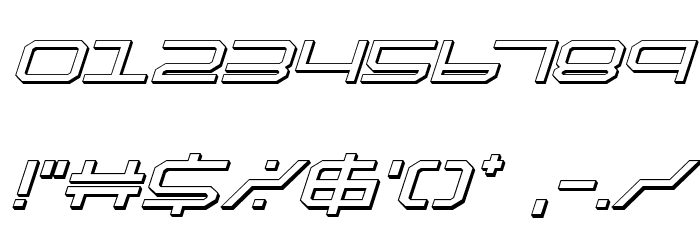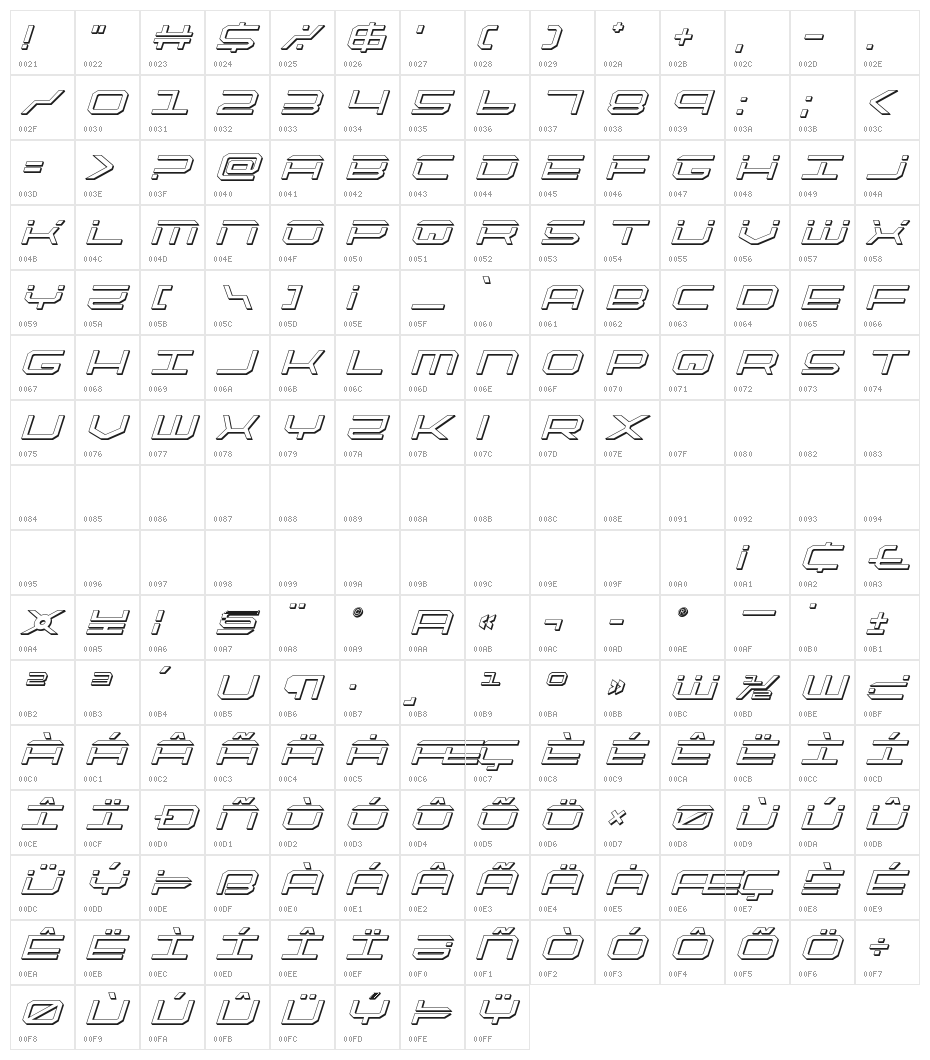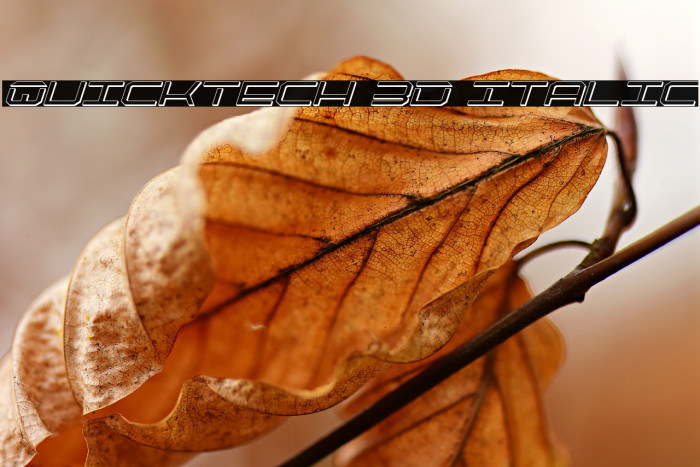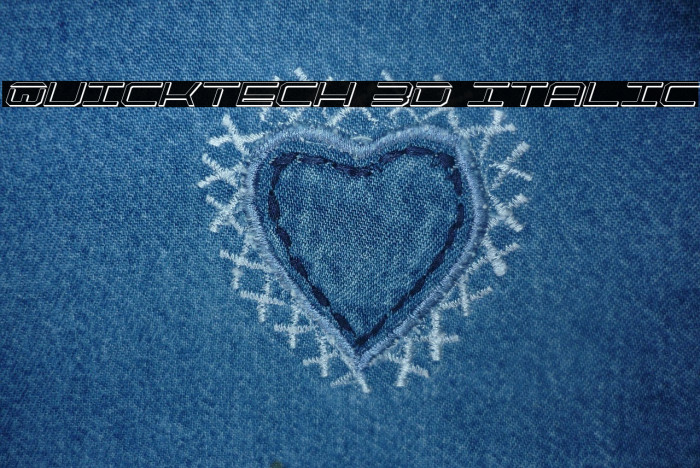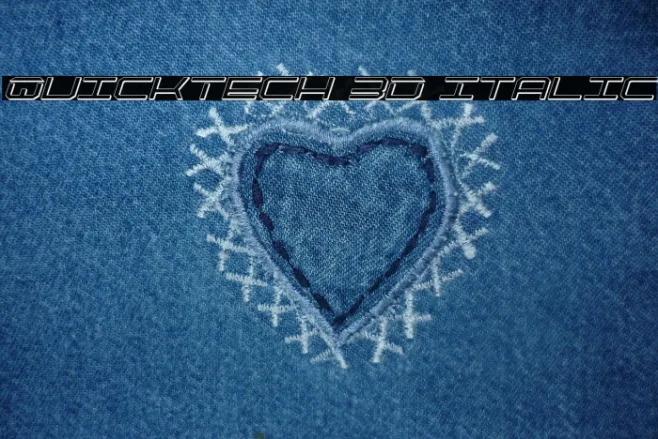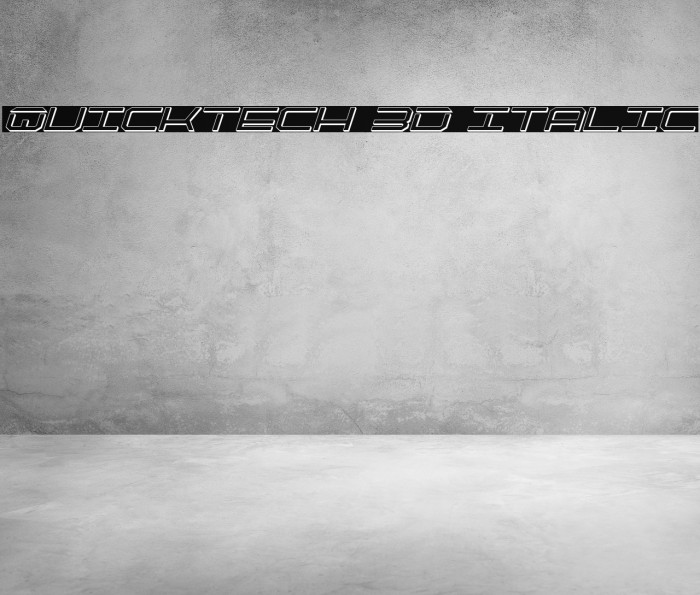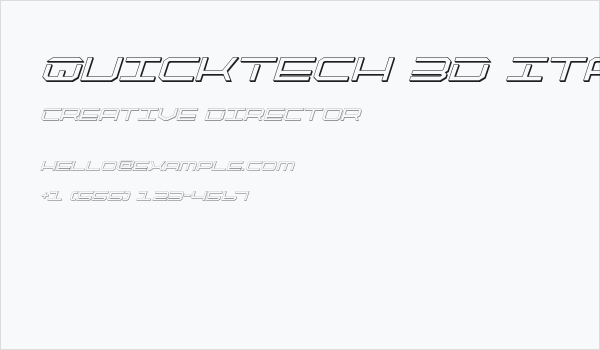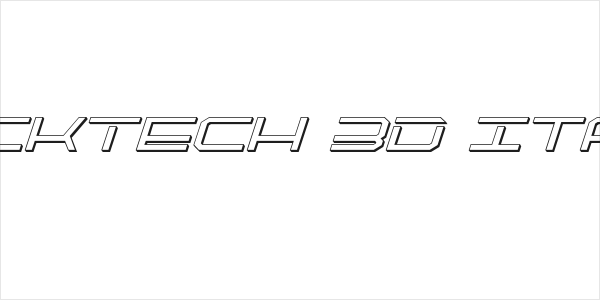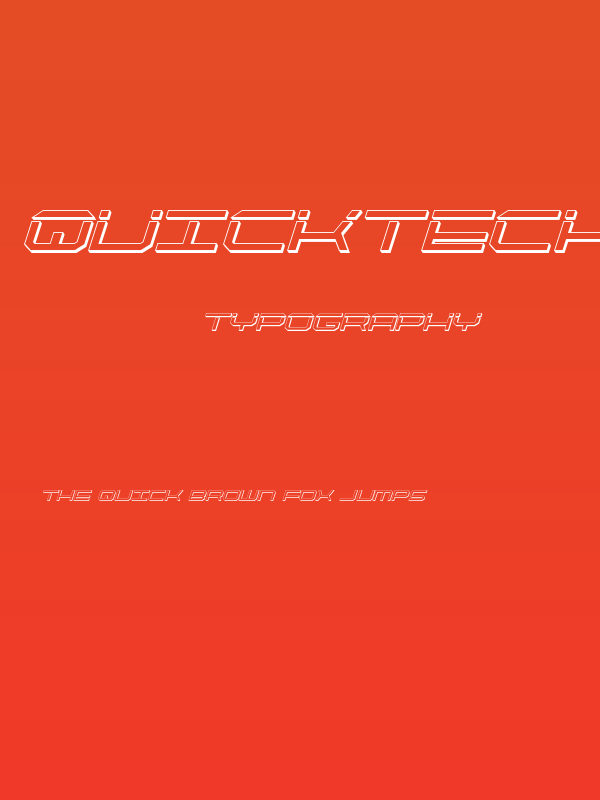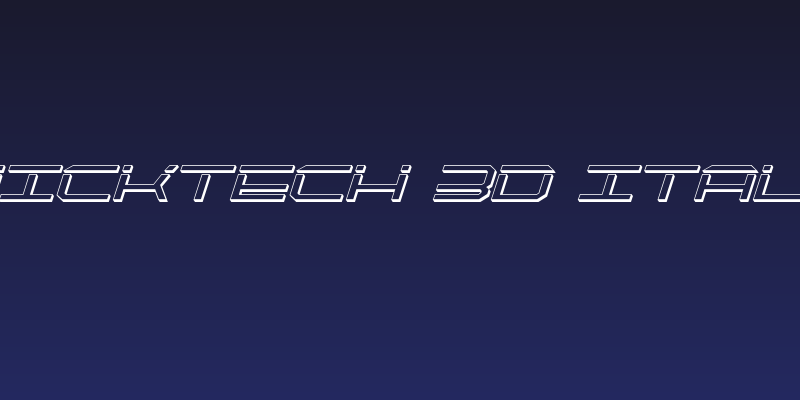
QuickTech 3D Italic Font
QuickTech 3D Italic Description
This font features a futuristic and technical design with a 3D effect, characterized by its geometric and angular letterforms. The characters are outlined, giving them a hollow appearance that enhances the three-dimensional look. The uppercase and lowercase letters maintain a consistent style, with sharp edges and a slightly italicized slant, adding dynamism to the text. The numbers and special characters follow the same design principles, ensuring uniformity across all glyphs. This font is ideal for projects that require a modern and tech-savvy aesthetic, such as technology branding, video game titles, or sci-fi themed designs.
| Proposed Projects | Ideal for technology branding, video game titles, sci-fi themed designs, and modern digital interfaces. |